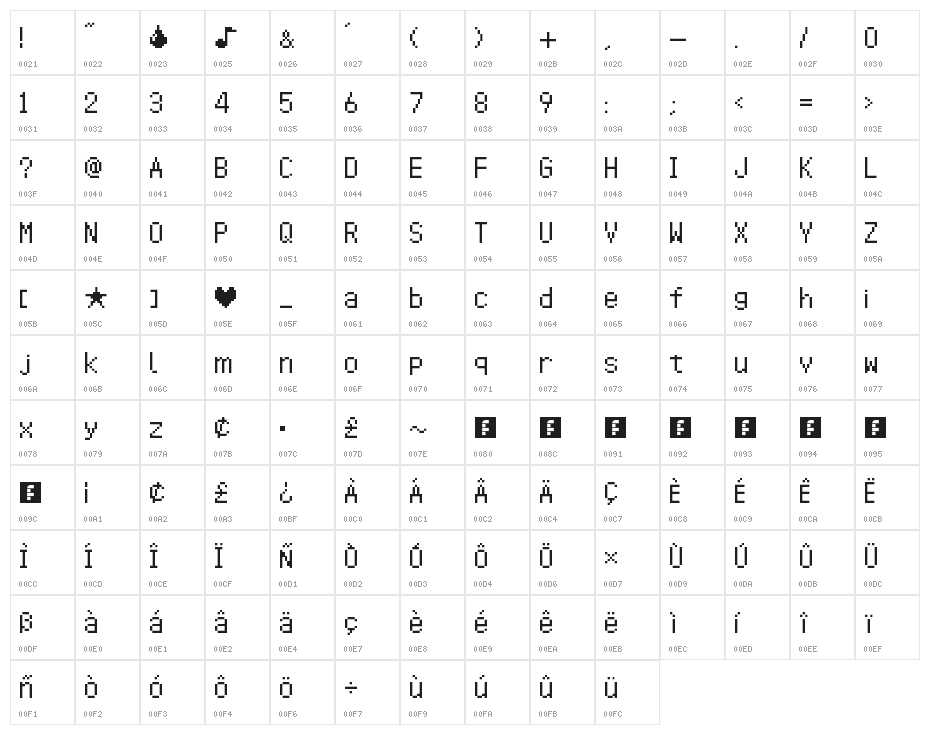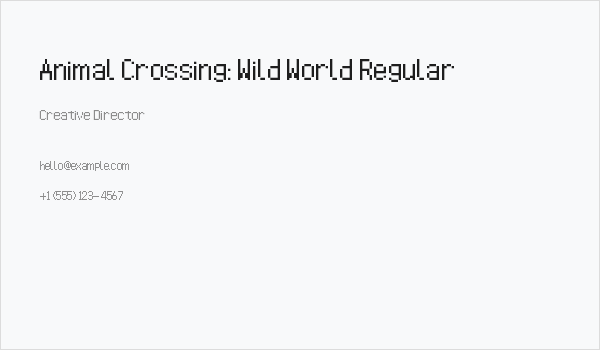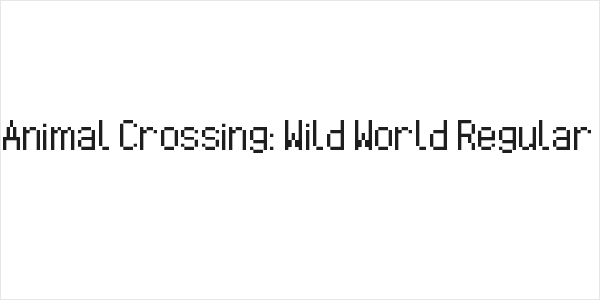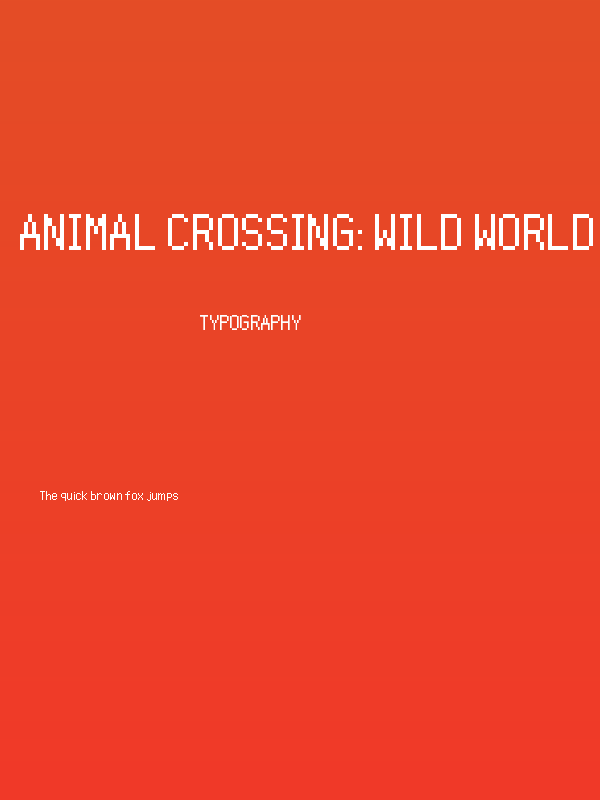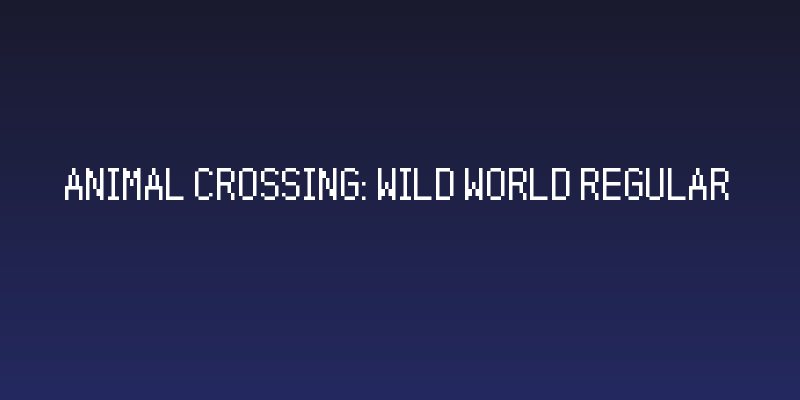
Animal Crossing: Wild World Regular Font
Animal Crossing: Wild World Regular Description
This font features a pixelated, blocky style reminiscent of early video game graphics. Each character is composed of square pixels, giving it a retro, digital appearance. The uppercase and lowercase letters maintain a consistent height, contributing to a uniform look. Numbers and special characters follow the same pixelated design, ensuring a cohesive aesthetic throughout. The font's simplicity and clarity make it easily readable, while its nostalgic charm adds a playful touch to any design.
| Overall Style | Retro, Digital |
| Use Case | Headlines, Logos, Digital Art |
| Proposed Projects | Ideal for video game design, retro-themed graphics, digital art projects, and playful branding. |